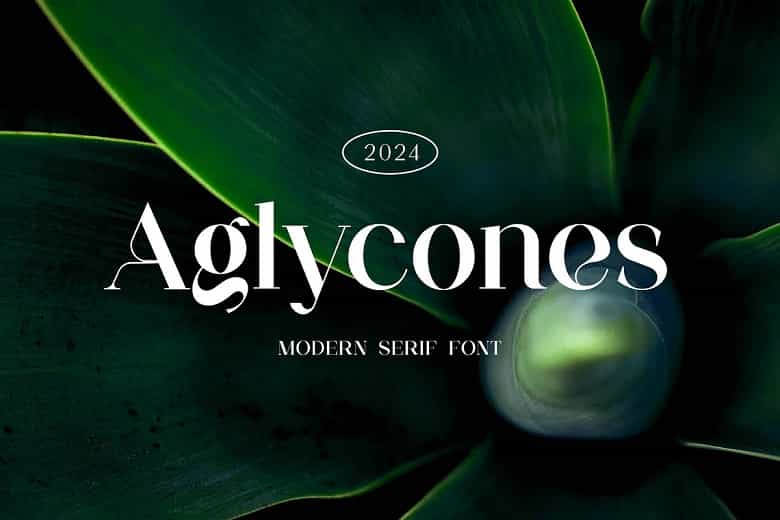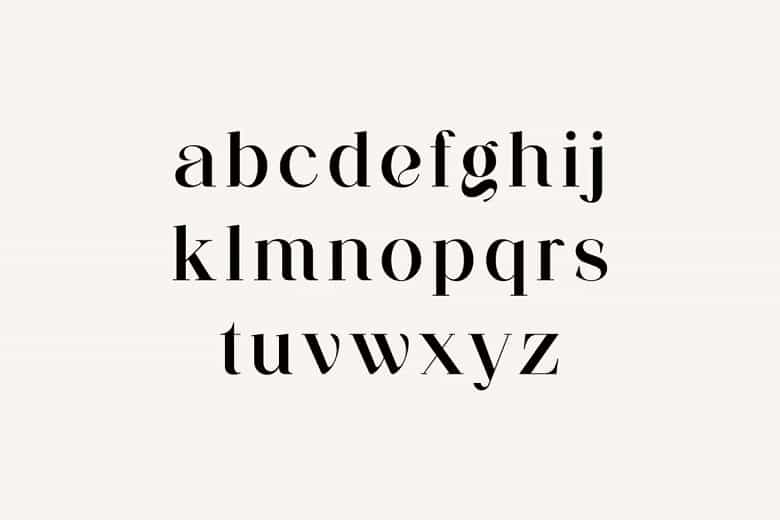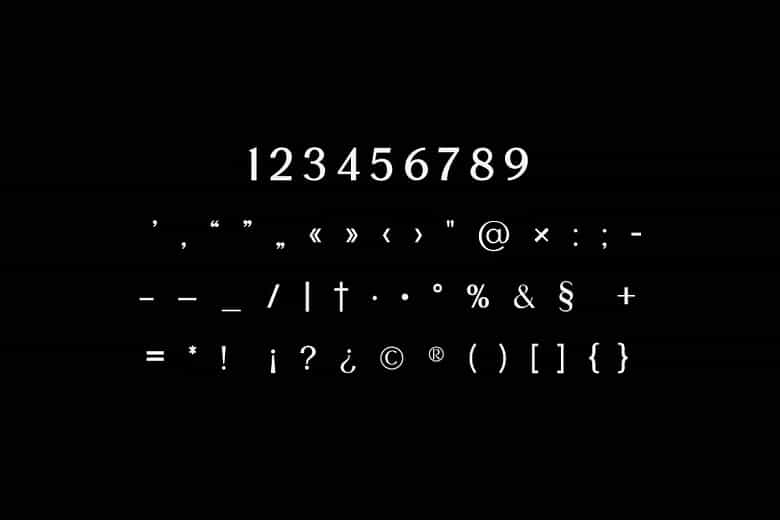
Aglycones is a new modern serif font. This font is well suitable for any kind of projects including logo, wedding, quotes, magazine or book cover, website headers, branding and etc. In addition, fashion branding or editorial design has both the masculine and the feminine characteristics.